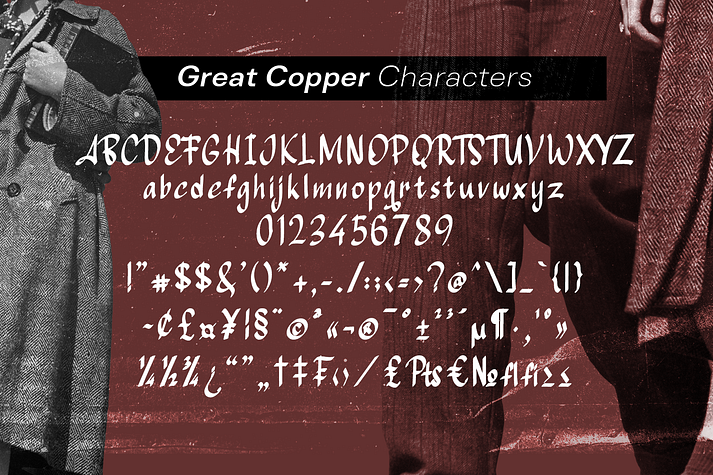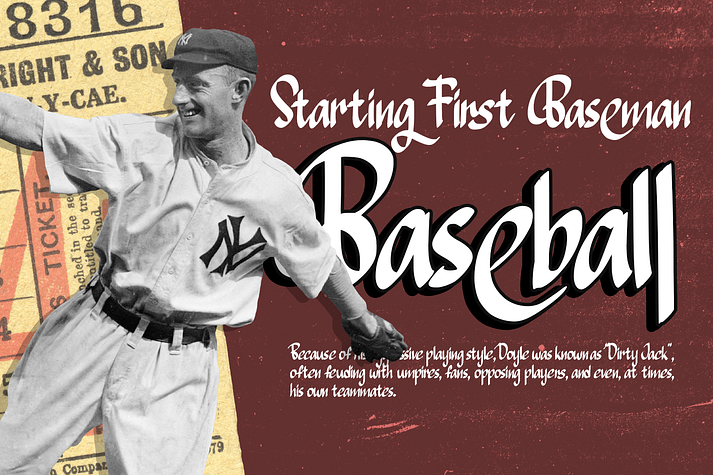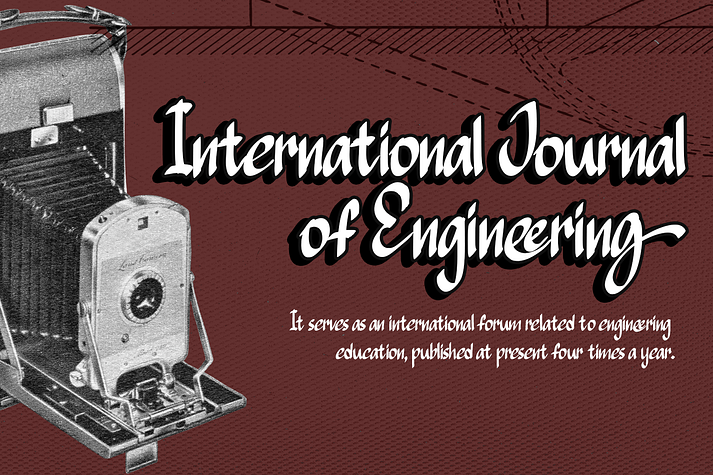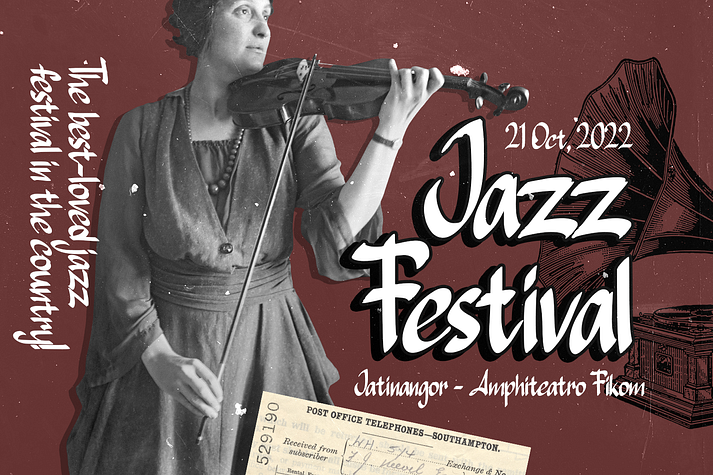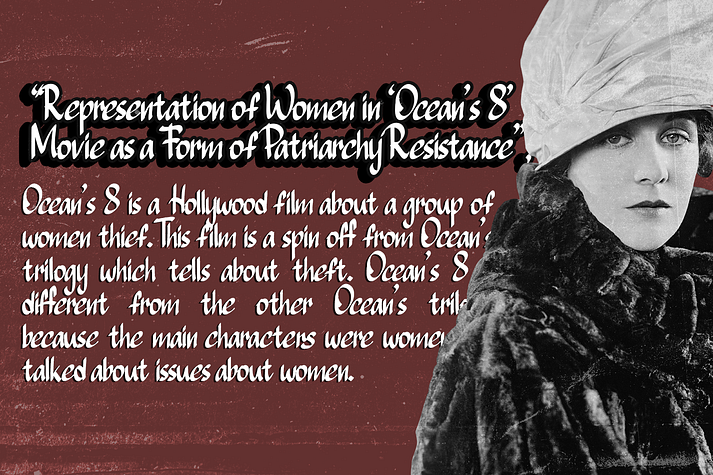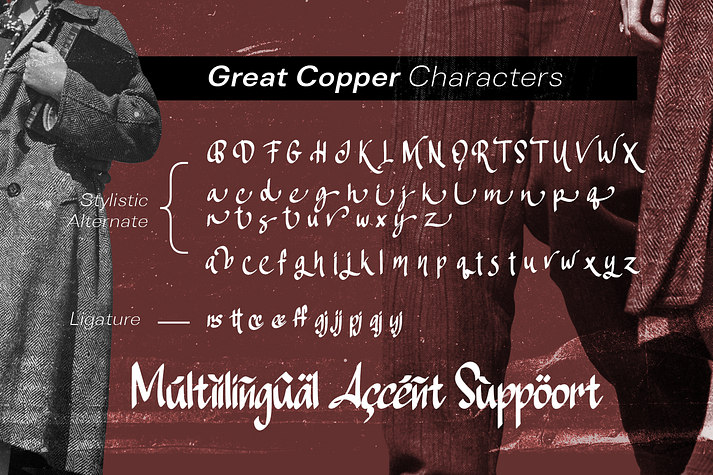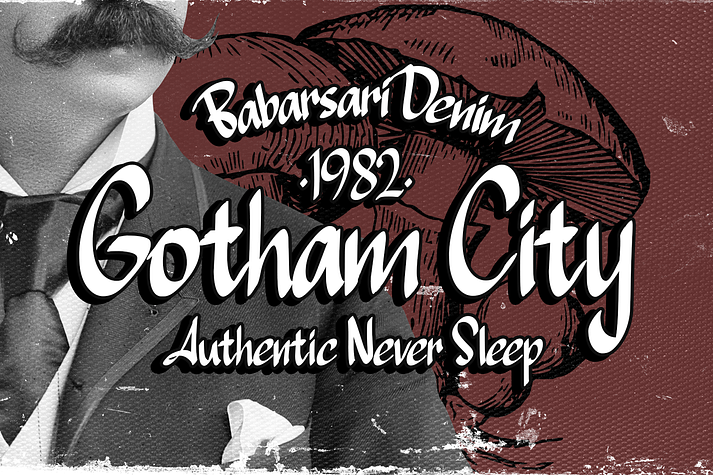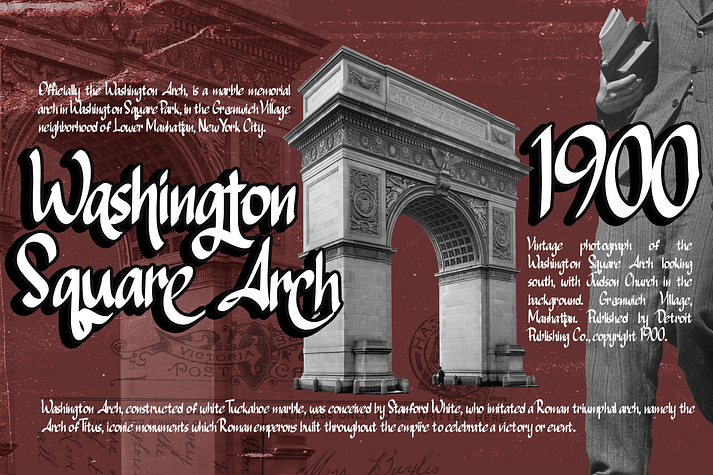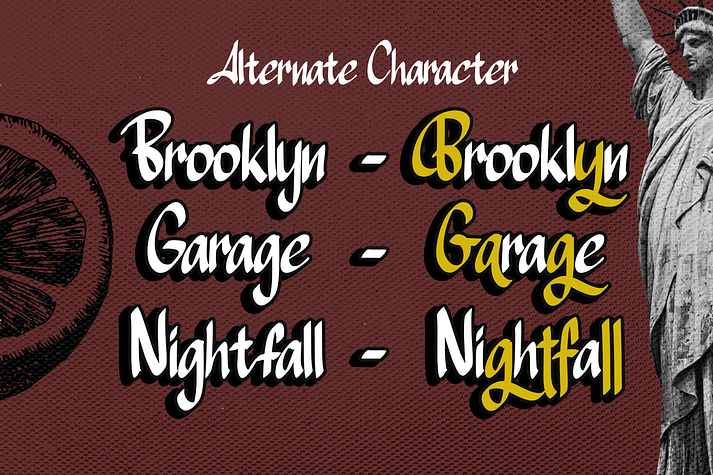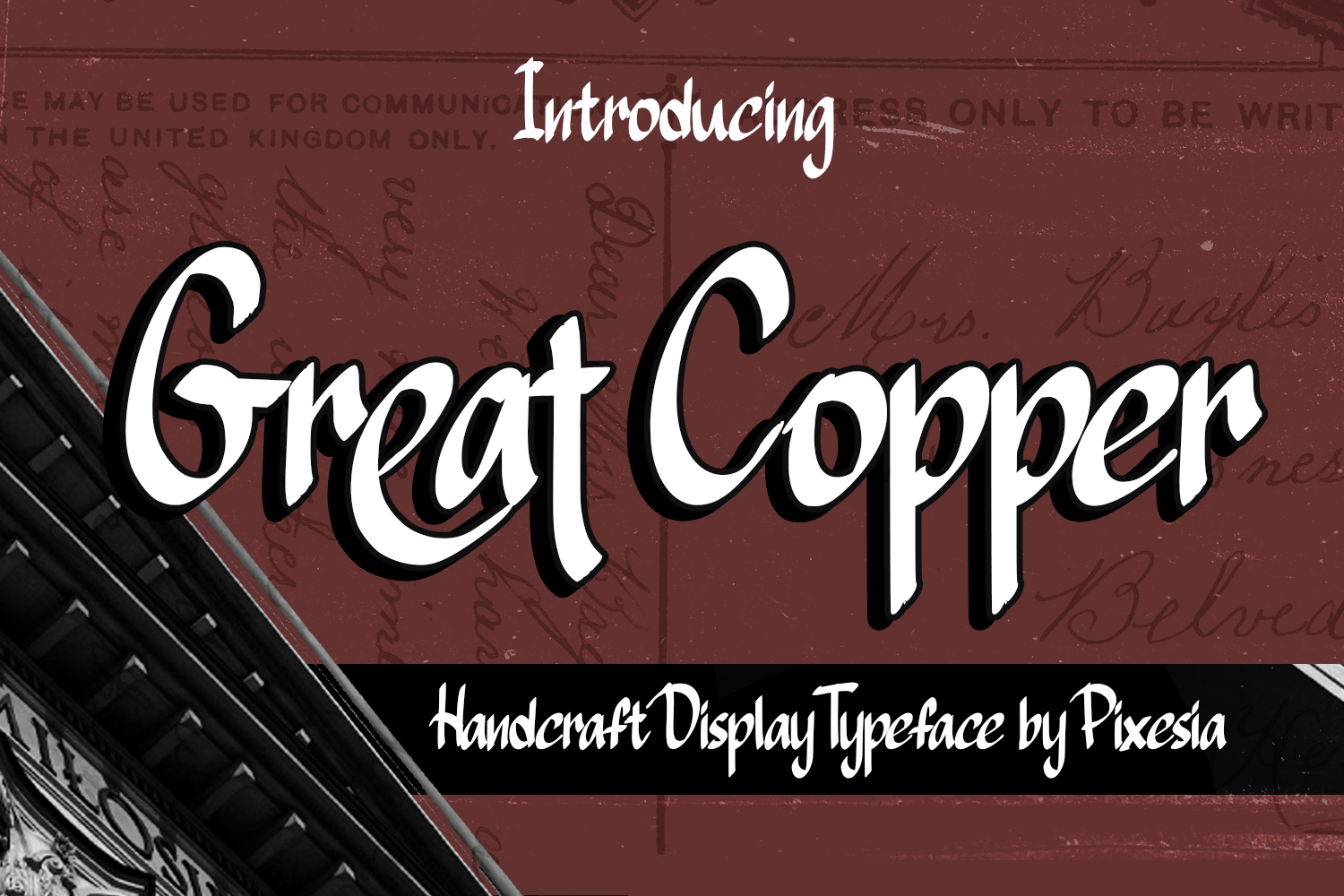
Great Copper
Great Copper is a font family published by Pixesia Studio.
Introducing Great Copper - An Old Handcraft Display Font
With a perfect combination of its unique yet classic shapes, Great Copper greatly portrays the familiar feeling that you are looking for. This typeface suits the nostalgic feeling you want to evoke through words. It comes as if Great Copper is written personally as letters to deliver good news. As splendid it curves in delivering the sweet vibe, Great Copper comes also with its firm shape to emphasize how valuable the messages and stories that it brings. Enchanting yet emphatic, Great Copper typeface will be perfect to depict the great story about the past you’d be delighted to tell and share.
FEATURES
• Stylistic Alternates
• Ligatures
• Uppercase and Lowercase letters
• Numbering and Punctuations
• Multilingual Support